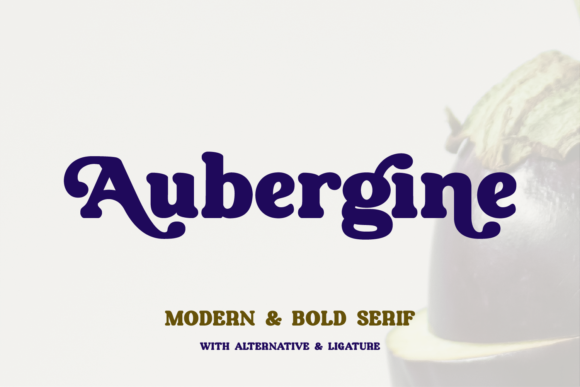
Aubergine Font: Elevate Your Designs with a Vintage Flair
The world of typography is vast and diverse, with numerous font styles to choose from, each with its unique characteristics and uses. Among these, the Aubergine font stands out for its distinct vintage style, bold serifs, and ease of use. In this article, we’ll delve into the features of the Aubergine font, its benefits, and how it can add a significant impact to your designs.
What is Aubergine Font?
Aubergine is a cool, vintage-styled, and bold serif font designed to add a touch of elegance and sophistication to any design project. Its chunky lettering and classic serifs evoke a sense of nostalgia, reminiscent of the typography used in the early 20th century. The font’s vintage appeal makes it perfect for designs that require a retro or classic look, such as branding, packaging, and advertising materials.
Key Features of Aubergine Font
- Vintage Style: Aubergine’s design is inspired by classic typography from the past, giving it a unique and distinctive look.
- Bold Serifs: The font features bold serifs that add to its elegance and sophistication.
- Chunky Lettering: The font’s chunky lettering makes it perfect for headlines, titles, and other display text.
Benefits of Using Aubergine Font
The Aubergine font offers several benefits that make it an excellent choice for designers. Some of these benefits include:
- Versatility: Aubergine font can be used in a wide range of design projects, from branding and packaging to advertising and marketing materials.
- Unique Look: The font’s vintage style and bold serifs give it a unique look that can help designers create distinctive and memorable designs.
- High Impact: The chunky lettering and bold serifs of Aubergine font make it perfect for creating high-impact designs that grab attention.
How to Use Aubergine Font in Your Designs
Using Aubergine font in your designs is straightforward. Here are some tips to get you started:
- Headlines and Titles: Use Aubergine font for headlines and titles to add a touch of elegance and sophistication to your designs.
- Branding and Packaging: Aubergine font is perfect for branding and packaging designs that require a vintage or classic look.
- Advertising and Marketing: Use Aubergine font in advertising and marketing materials to create high-impact designs that grab attention.
- Experiment with Colors: Experiment with different colors to find the perfect combination that complements your design.
Tips for Pairing Aubergine Font with Other Fonts
Pairing Aubergine font with other fonts can create a unique and visually appealing design. Here are some tips for pairing Aubergine font with other fonts:
- Contrasting Fonts: Pair Aubergine font with contrasting fonts, such as sans-serif fonts, to create visual interest.
- Serif Fonts: Pair Aubergine font with other serif fonts to create a cohesive and classic look.
- Script Fonts: Pair Aubergine font with script fonts to add a touch of elegance and sophistication to your designs.
In conclusion, the Aubergine font is a versatile and elegant font that can add a significant impact to your designs. Its vintage style, bold serifs, and ease of use make it perfect for a wide range of design projects. Whether you’re looking to create high-impact designs, add a touch of elegance to your branding, or simply want to experiment with a new font, Aubergine font is an excellent choice.